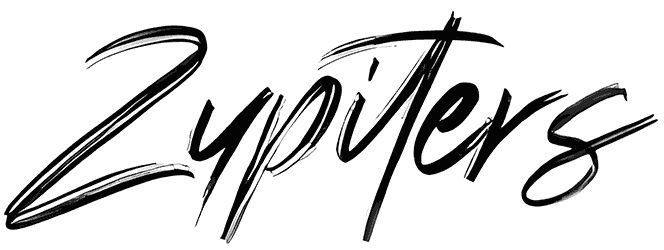
The functionality of a script font such as is really beyond your expectations, and you can pick it up for a huge set of graphic content like illustrations, brochures, product packaging, gift cards, or invitations.
A remarkable advantage, such as carrying a sense of personalization, freshness, dynamism, or vivacity, would easily make up for the lack of numbers. Finally, we advise you to utilize this brush font and make a shining outcome of it.